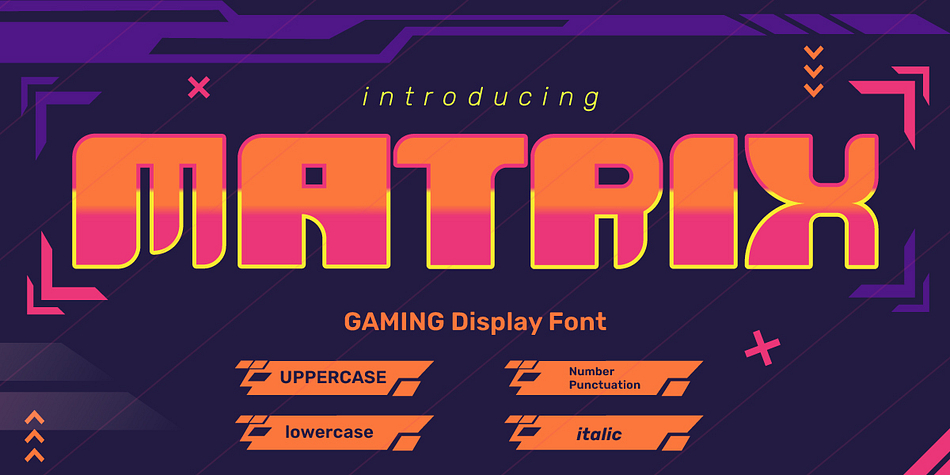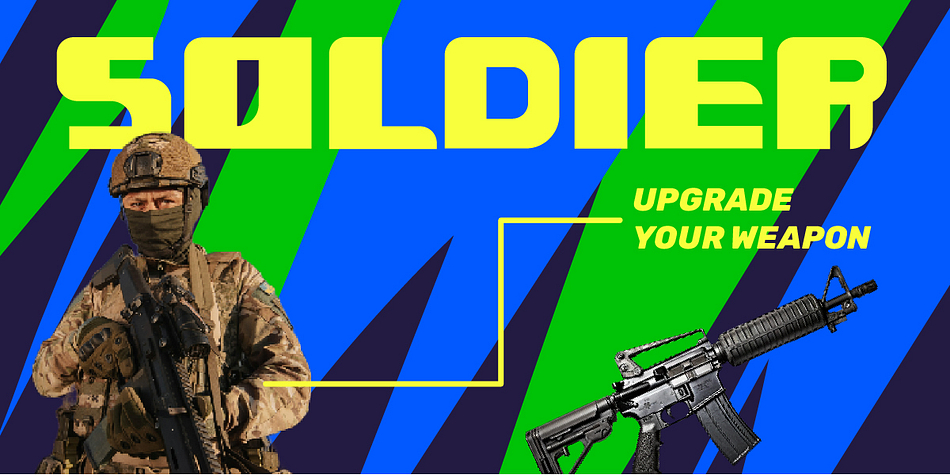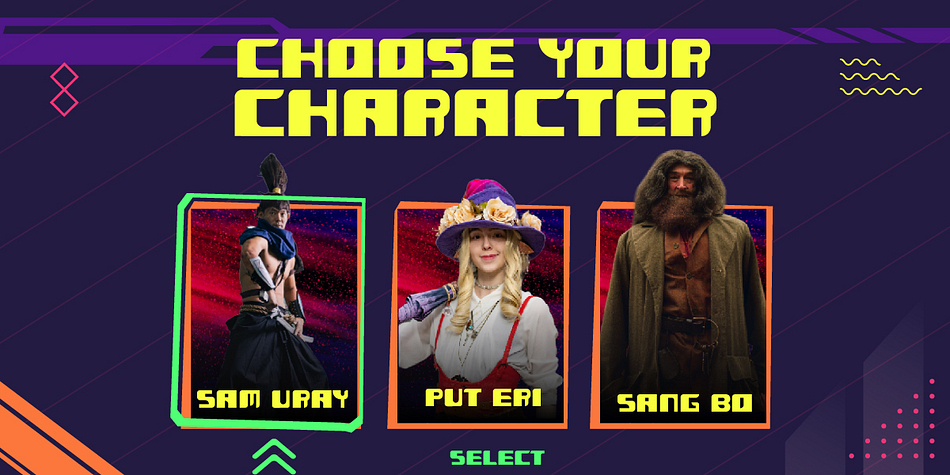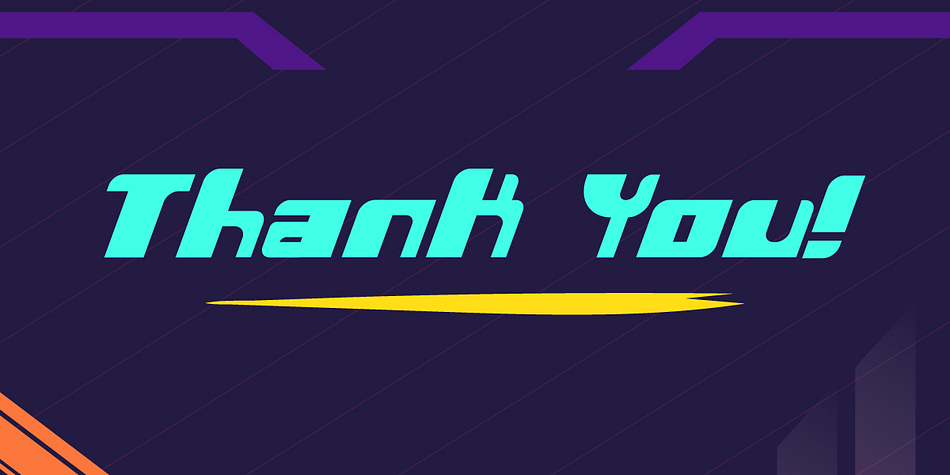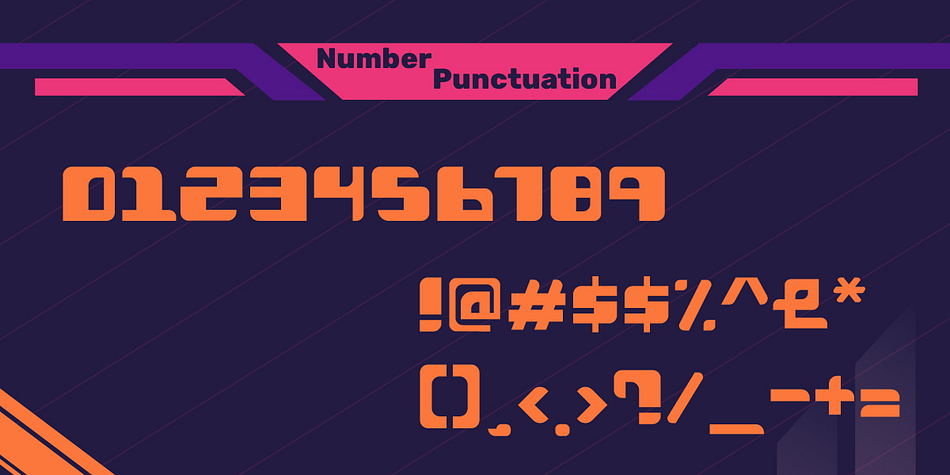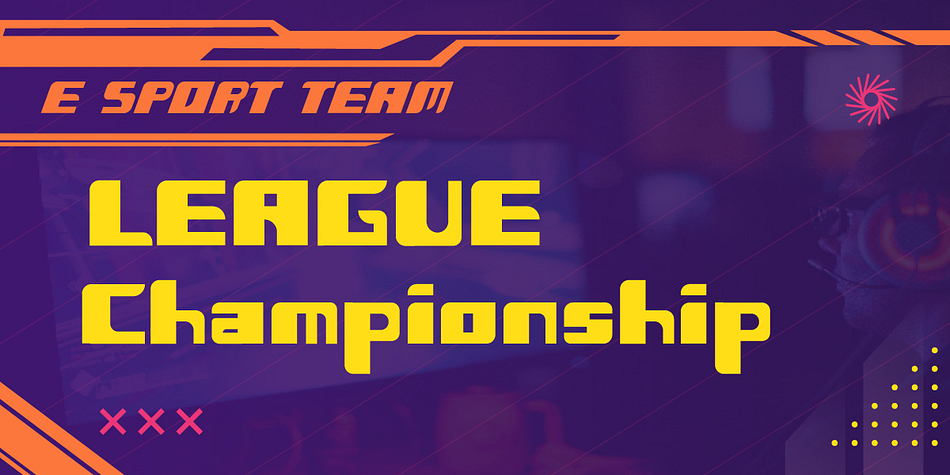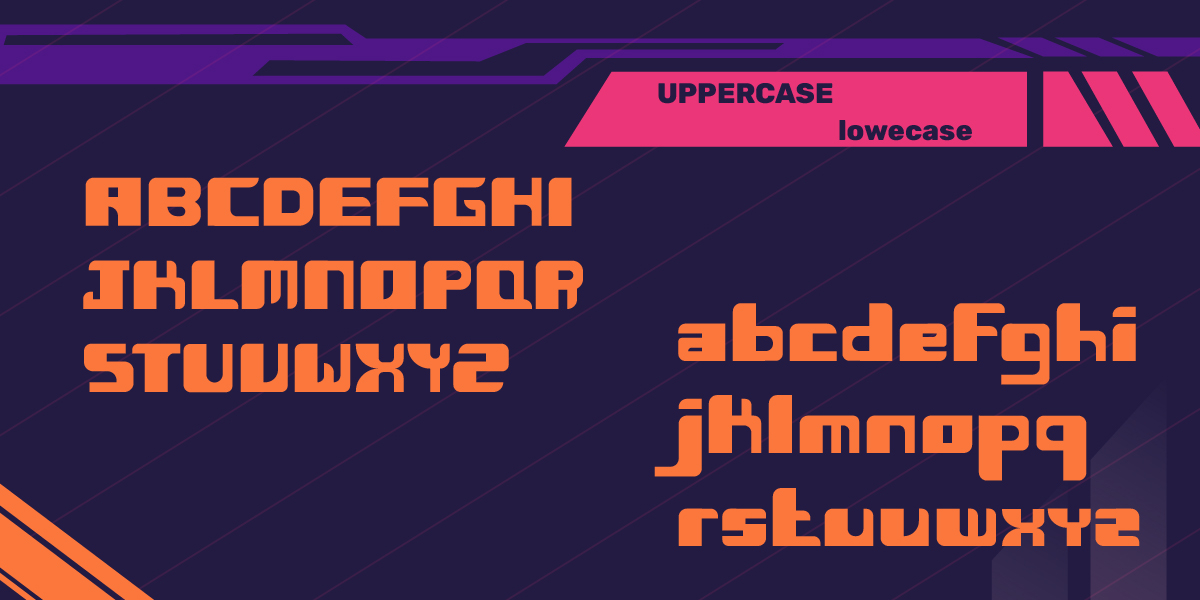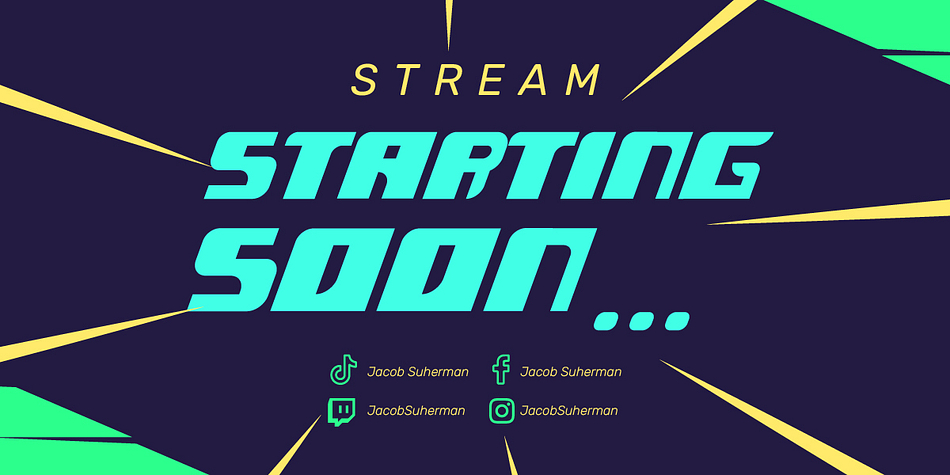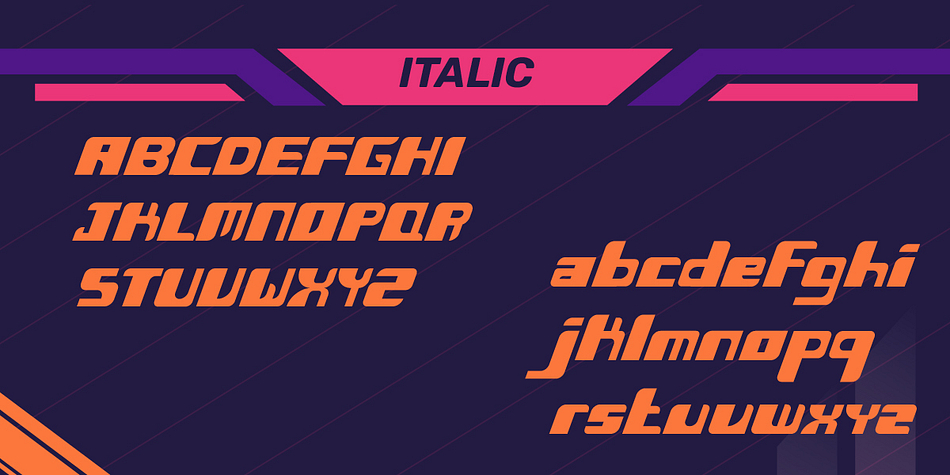
Matrix
Matrix is a sans serif font family. This typeface has two styles and was published by Zaidan Ramadan Ilyas.
Matrix Font: Gaming Display Typeface
Introducing Matrix—a cutting-edge gaming display font that packs a punch. Crafted for high-tech, action-packed visuals, this font features sharp lines, bold shapes, and dynamic forms. Whether you’re creating promotional content for esports tournaments, designing immersive game interfaces, or enhancing streaming visuals, Matrix is your go-to choice. Available in uppercase, lowercase, numbers, and punctuation, this font provides all the flexibility you need for your designs, including an italic version for an extra touch of speed and impact.